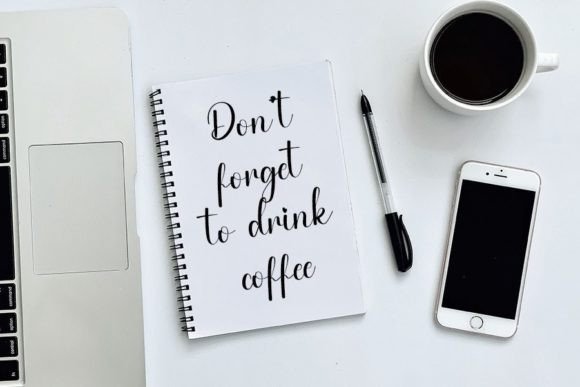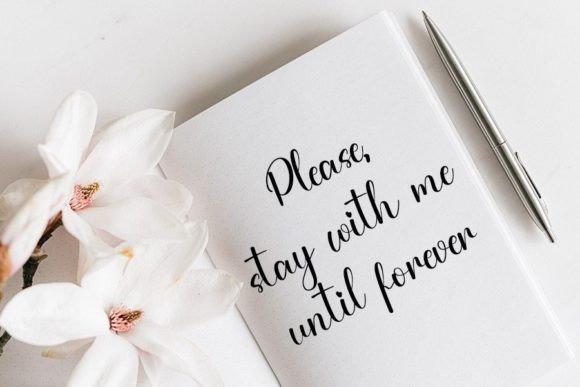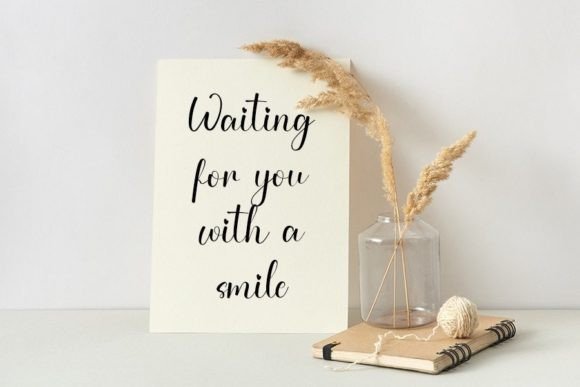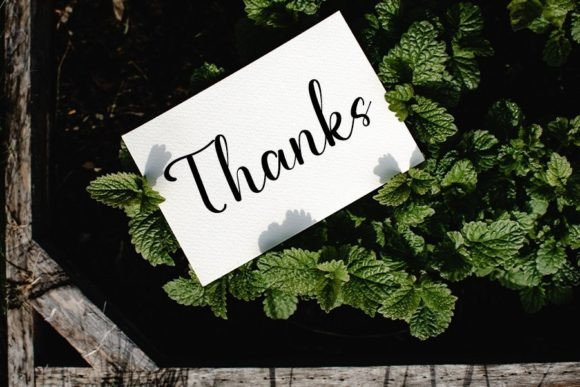
Pink Lemonade Font
About Pink Lemonade Font
Pink Lemonade, a font that blends neatness with beauty, introduces an elegant touch to your favorite projects. Crafted with precision and care, this handwritten font embodies a refined aesthetic, making it an excellent choice for a diverse range of creative endeavors. Its distinct and timeless style adds a touch of sophistication to your designs, allowing you to create truly spectacular visuals.
Neatness and beauty converge seamlessly in Pink Lemonade, where each stroke is meticulously designed to maintain a polished appearance. This attention to detail ensures that the font retains a level of refinement that is well-suited for various applications, such as quotes, branding materials, invitations, and more.
The font’s elegant touch is not merely a surface-level quality; it goes beyond aesthetics to offer a sense of sophistication that transcends trends. Pink Lemonade possesses a timeless quality, making it versatile enough to complement both contemporary and classic design styles. This adaptability ensures that your projects will stand the test of time.
Pink Lemonade’s distinct and timeless style is an invitation to fall in love with the art of typography. Its handwritten charm is not just a passing trend but a design choice that resonates with enduring appeal. Whether you’re working on modern branding, classic invitations, or any creative venture that demands a touch of elegance, Pink Lemonade rises to the occasion.
As you integrate Pink Lemonade into your design toolkit, you open the door to a world of possibilities. Every project becomes an opportunity to showcase not just a font but a symbol of refined artistry. Pink Lemonade transforms ordinary designs into something extraordinary, allowing you to create visuals that captivate and leave a lasting impression. Let Pink Lemonade be the elegant touch that elevates your creative work to new heights of beauty and sophistication.